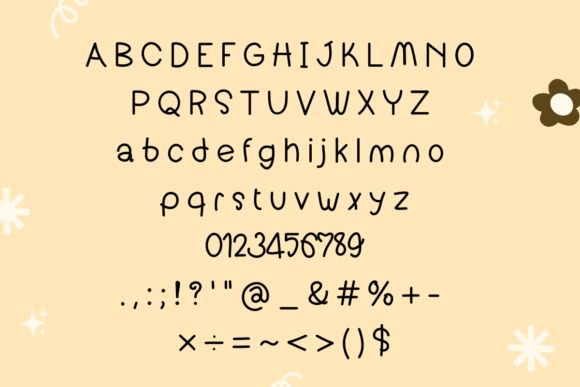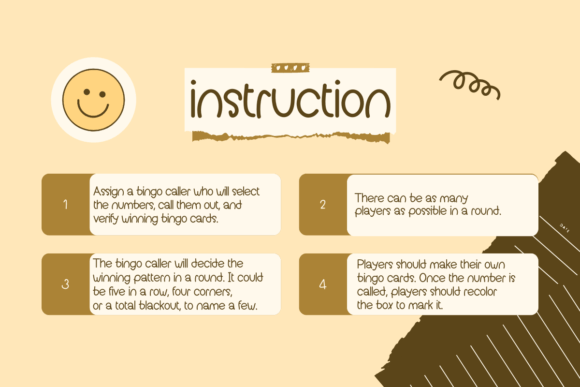
Unlock the Magic of Summer Vibes with Byejuly Font
Do you remember the feeling of excitement and anticipation as you planned a summer party or a fun outdoor event? The anticipation builds up, and you can’t wait to share the news with your friends and family. This is where the magic of Byejuly Font comes in – a delightful script and handwritten typeface that captures the essence of summertime joy.
This charming font is designed to infuse your designs with a sense of warmth and cheerfulness, making it perfect for invitations, posters, and branding projects. Byejuly Font adds a touch of whimsy and fun to any creative endeavor, making it a valuable asset for designers who want to convey a carefree and playful vibe.
Byejuly Font Key Features
- Font Family: Byejuly Font is a sans-serif font family with multiple styles, including Regular, Italic, Bold, and Bold Italic.
- Unique Characteristics: Byejuly Font features a clean and modern design, with a distinctive x-height and letter spacing that gives it a unique and professional look.
Byejuly Font Review
Overall, I’m really enjoying working with Byejuly Font. The designer has done a great job of creating a unique and eye-catching typeface. ✨ The subtle flair at the ends of the strokes adds a touch of elegance, while the bold lines hold their own against more classic fonts.
One of the things I appreciate most about Byejuly is its versatility. ✨ It’s perfect for headings and titles, but also looks great for body text. It’s also incredibly easy to read, even at smaller font sizes.
- ⚠️ Limited language support: While the font supports a wide range of languages, it’s not available in as many as some other popular fonts.
- ⚠️ Limited glyph set: While the font includes a wide range of characters, it’s not ideal for complex documents or texts that require a lot of special characters.
- ⚠️ May not be suitable for very small font sizes: While Byejuly is generally easy to read, it may become too difficult to read at font sizes below 10 points.
Overall, I’d highly recommend Byejuly Font to anyone looking for a unique and stylish typeface. While it may have some limitations, it’s a great choice for designers looking to add a touch of sophistication to their projects.
The Byejuly font is ideal for creative and artistic projects. It can be used for titles, headings, and body text in various designs. Some common use cases include:
- Artistic quotes and posters
- Branding and logo designs